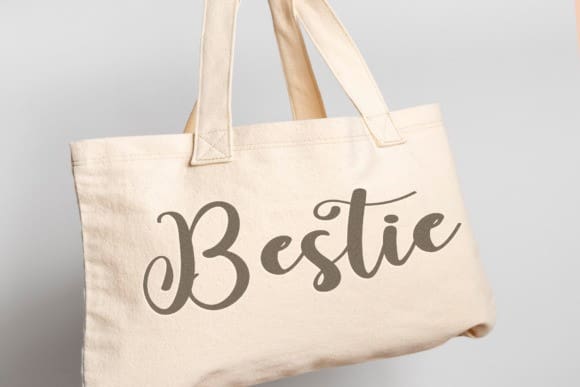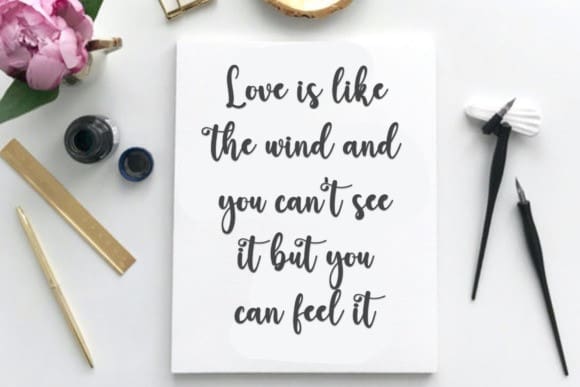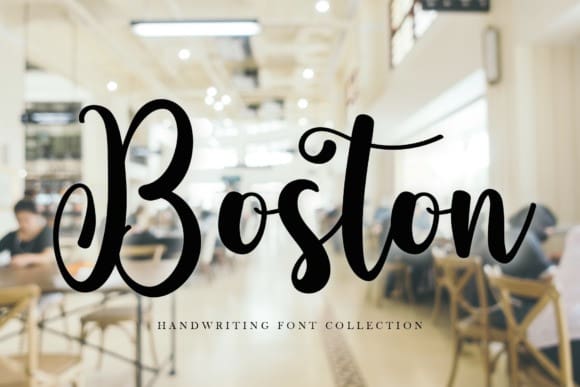
Boston Script Font
Boston Script Font, is a clean, relaxed, and friendly handwritten font. Suitable for a wide variety of designs due to its neat and simple style, this font has the potential to become your favorite go-to font, no matter the occasion!